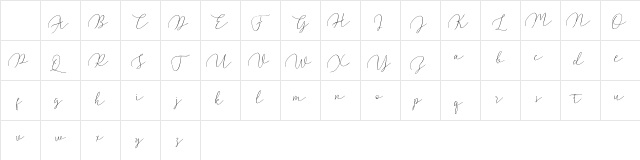
Walty Script flows with the natural rhythm of handwritten lettering, making it ideal for designs that call for warmth and personal expression.
Font Pairing: Combine Walty Script with a simple geometric sans for maximum contrast - the tension between flowing curves and clean structure is a classic typographic pairing.
Pro Tip: Use Walty Script for short runs of text - names, titles, or taglines. Extended body copy in script faces tires the eye quickly.